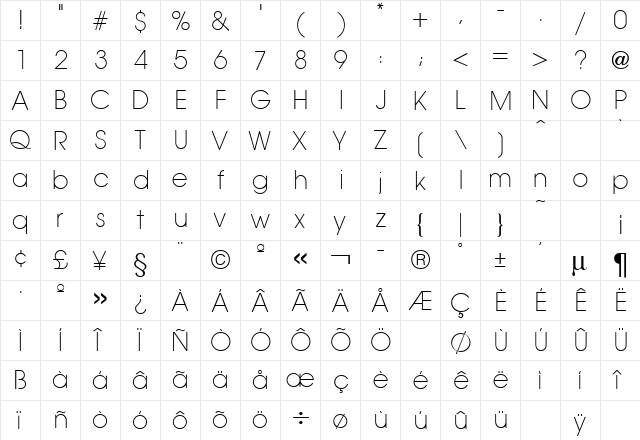
Avant Regular Font Preview
Avant Regular
Design Context for Avant Typeface
Avant offers clean, dependable letterforms without strong stylistic allegiance, making it a practical choice for designers who need flexibility.
Pro Tip: Pair Avant with a font of contrasting weight or personality to build a more expressive typographic hierarchy.